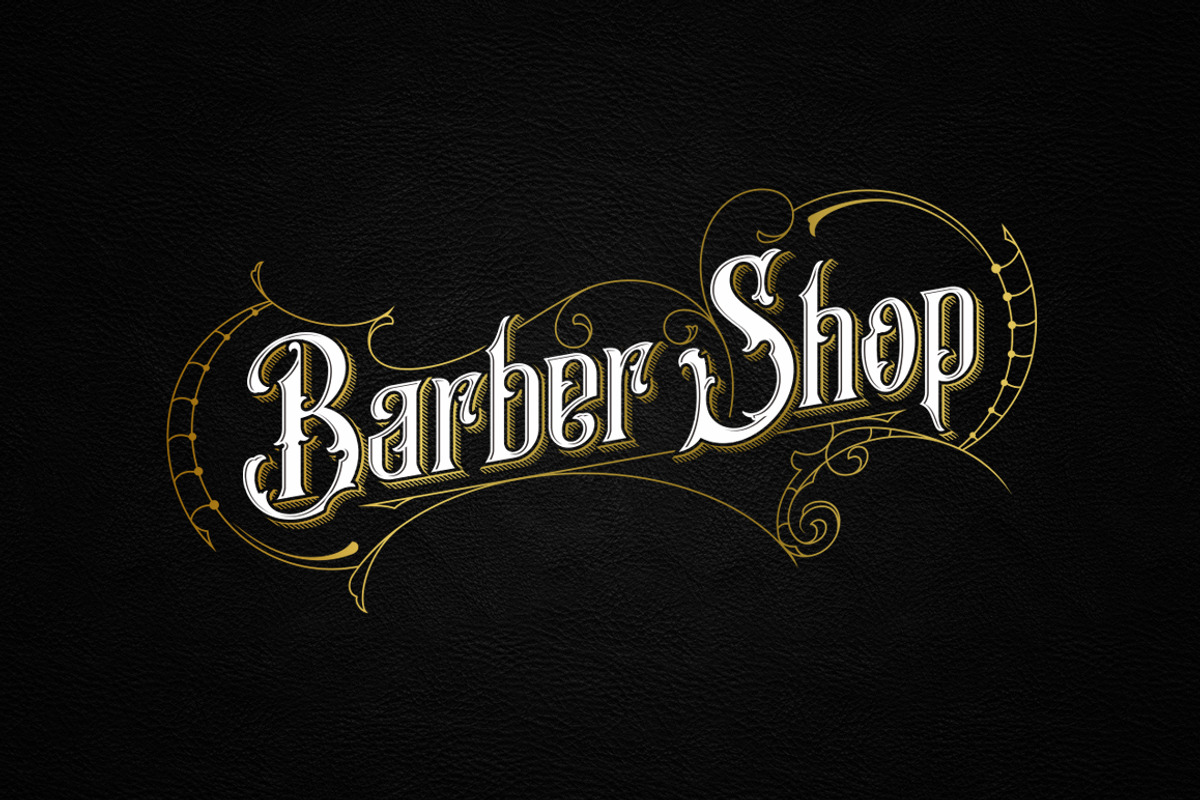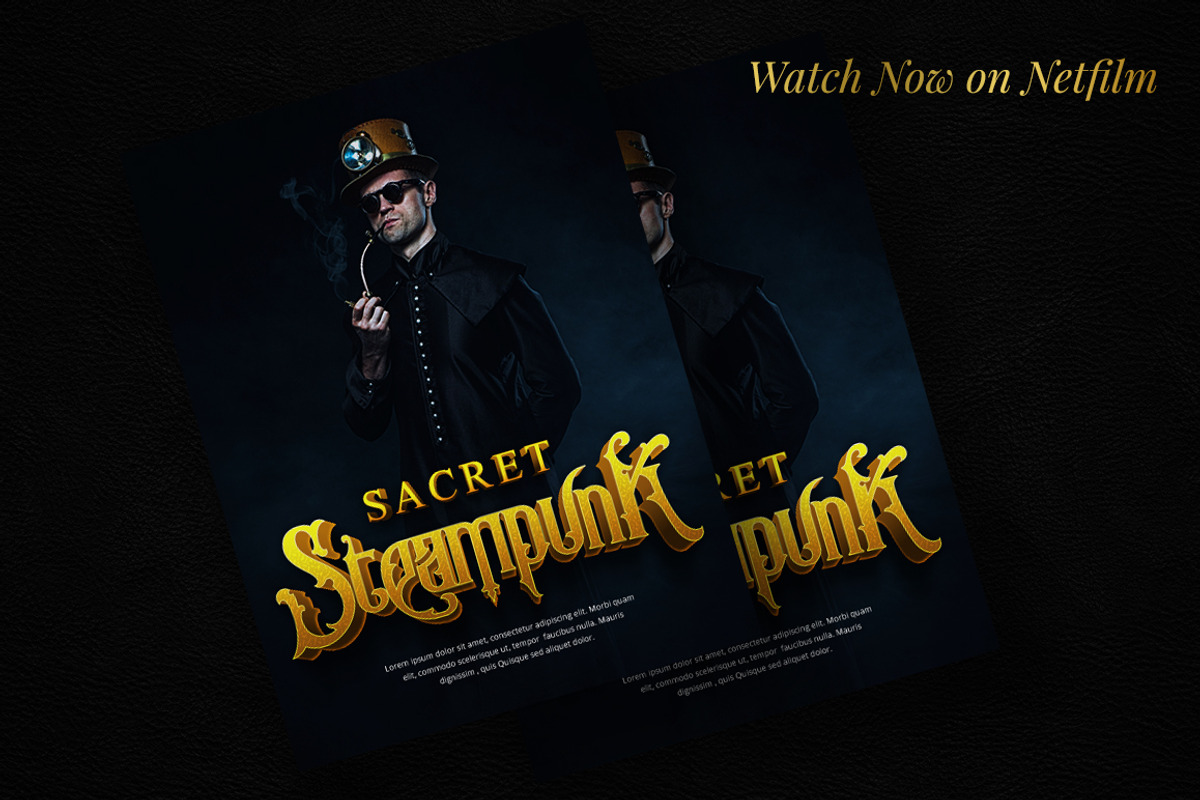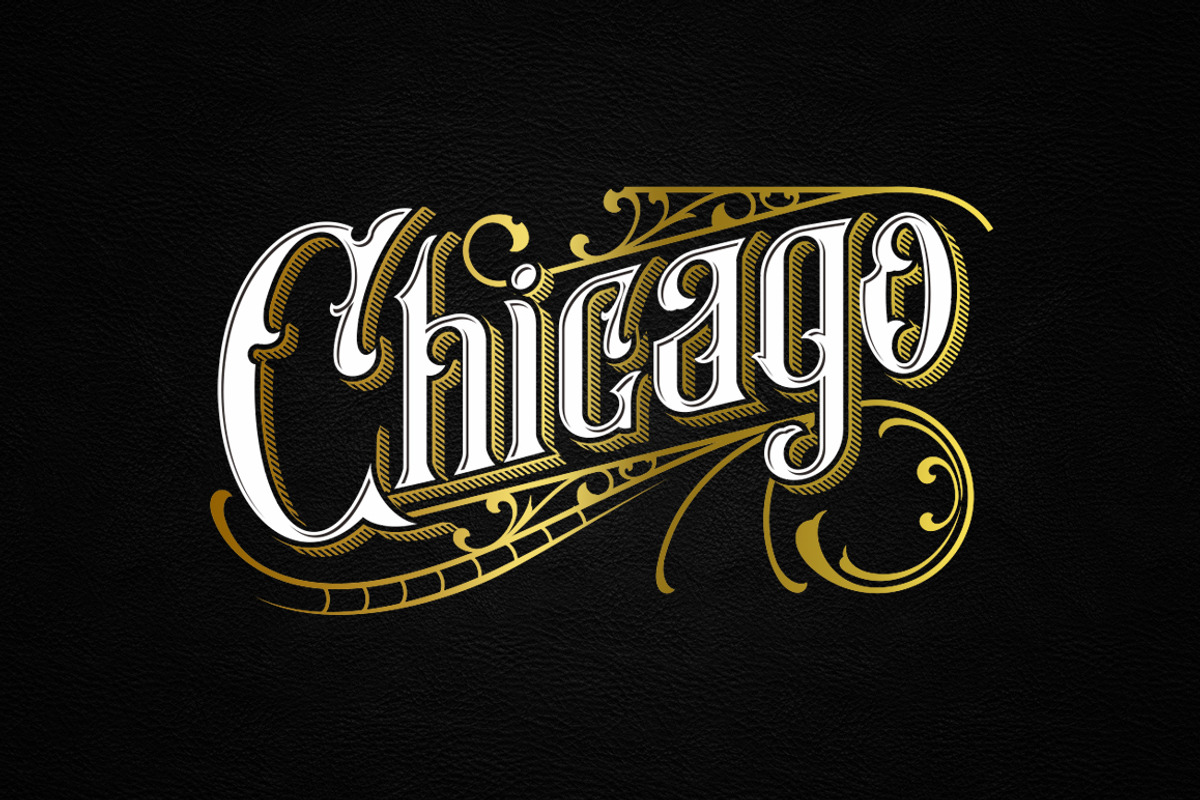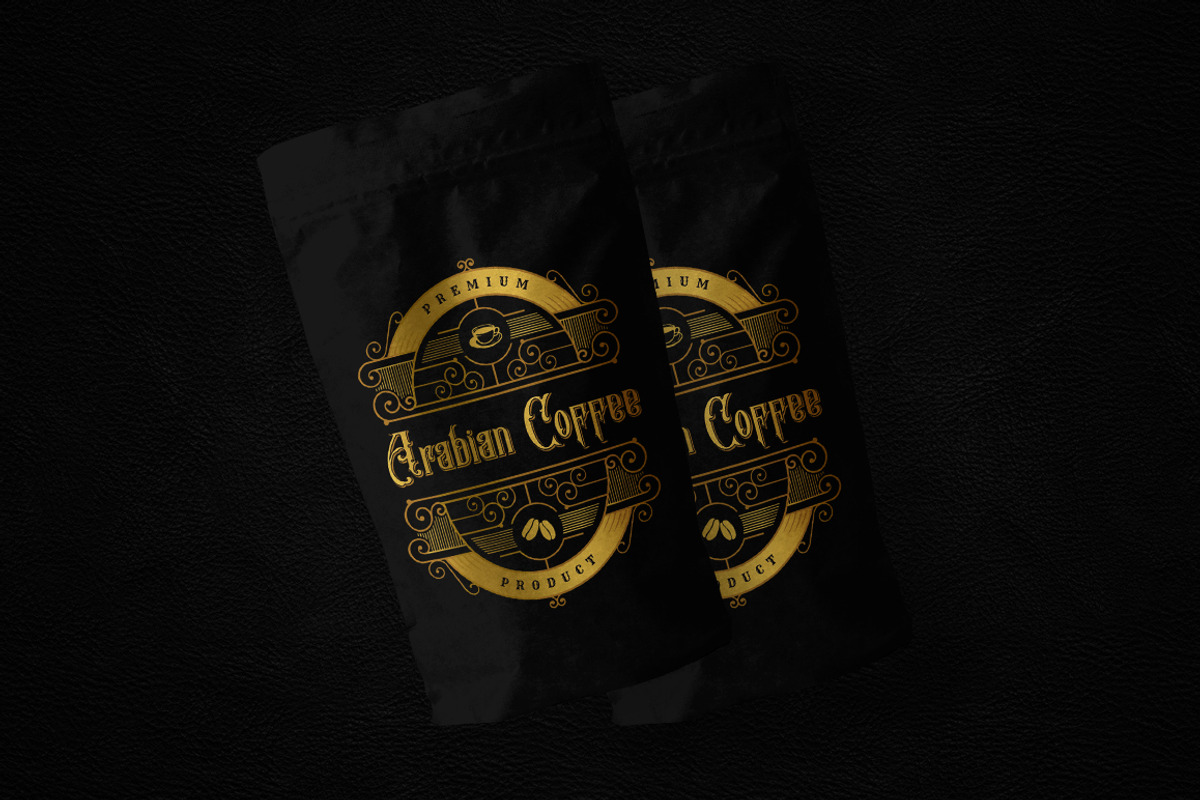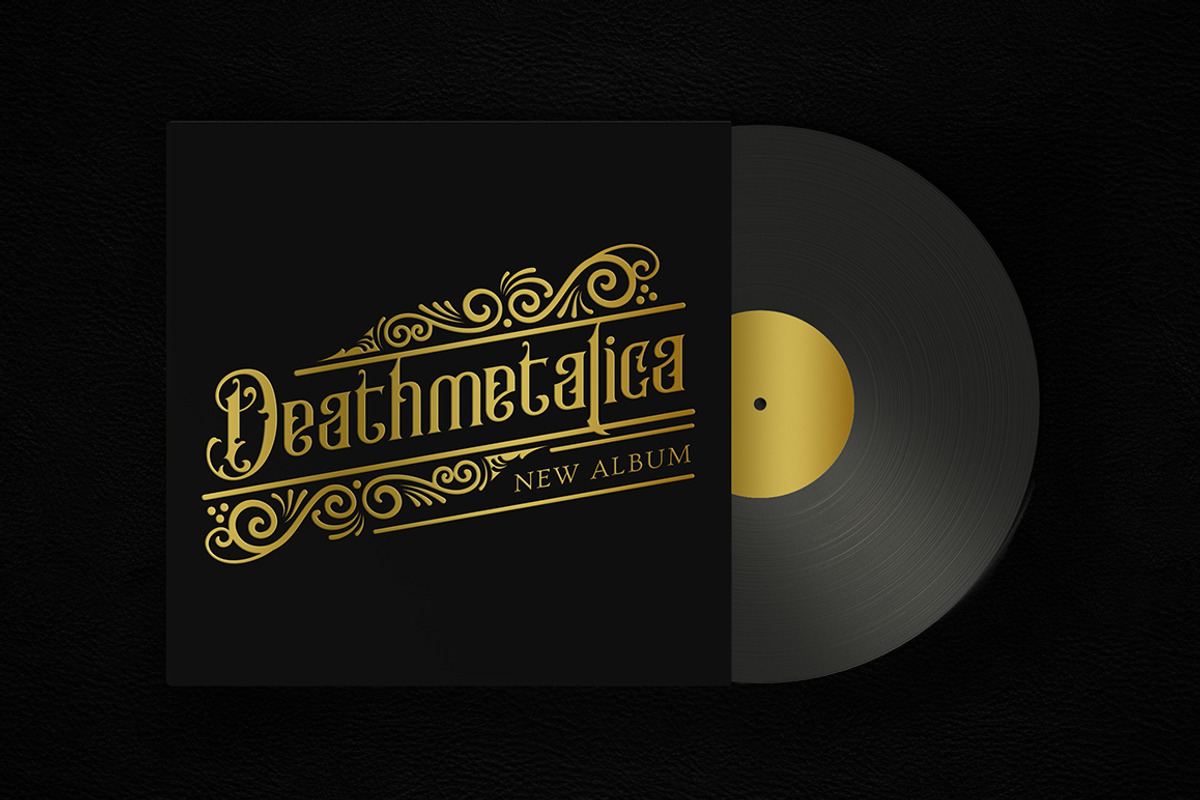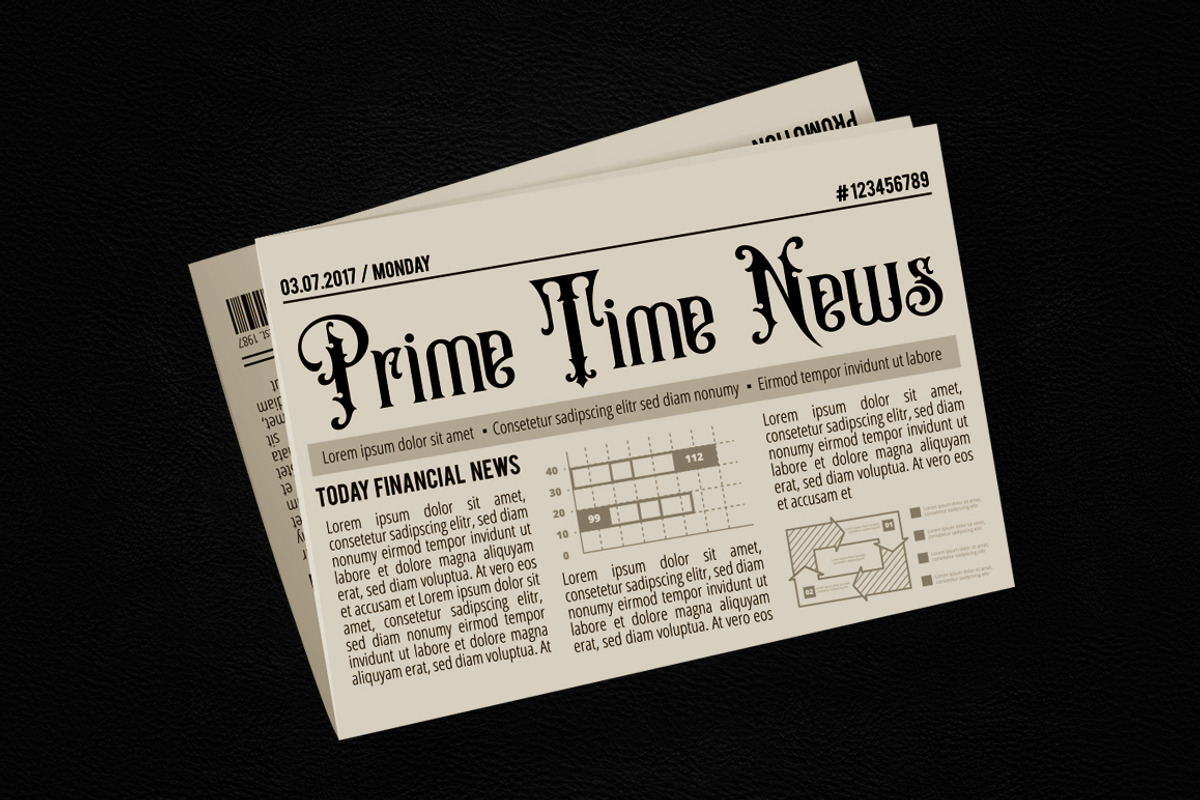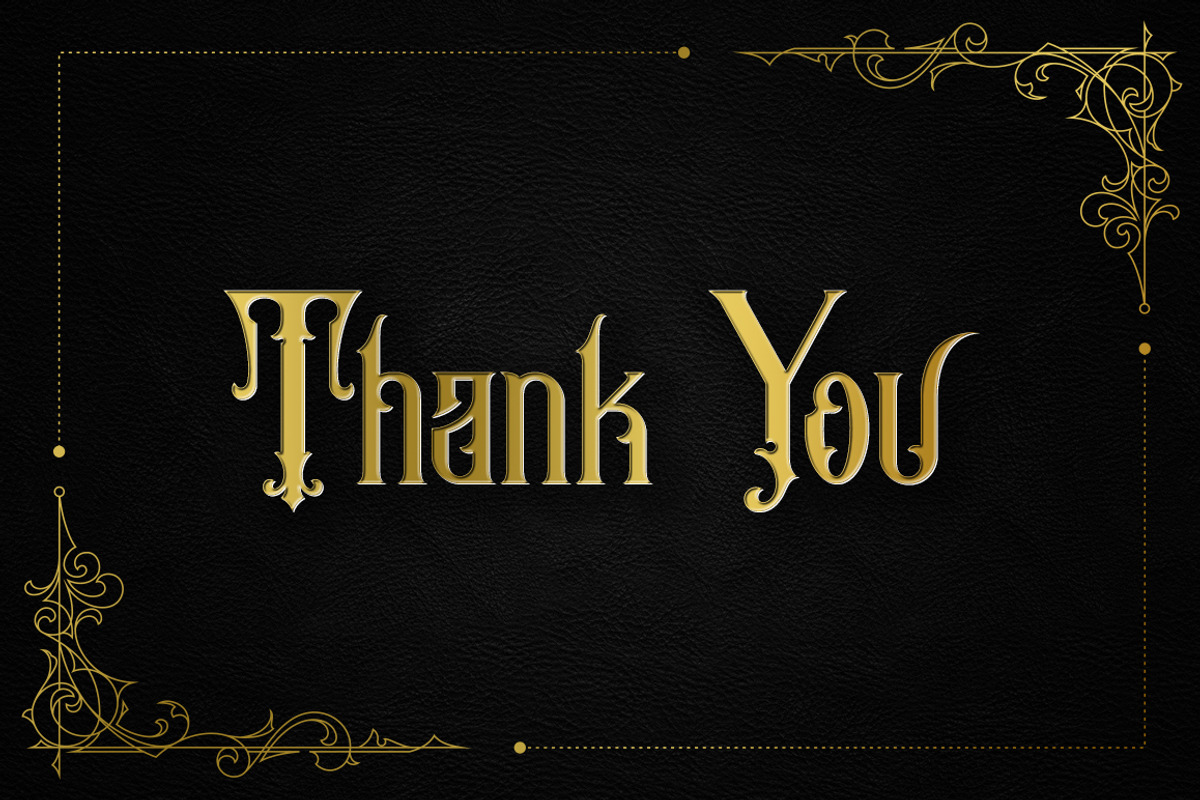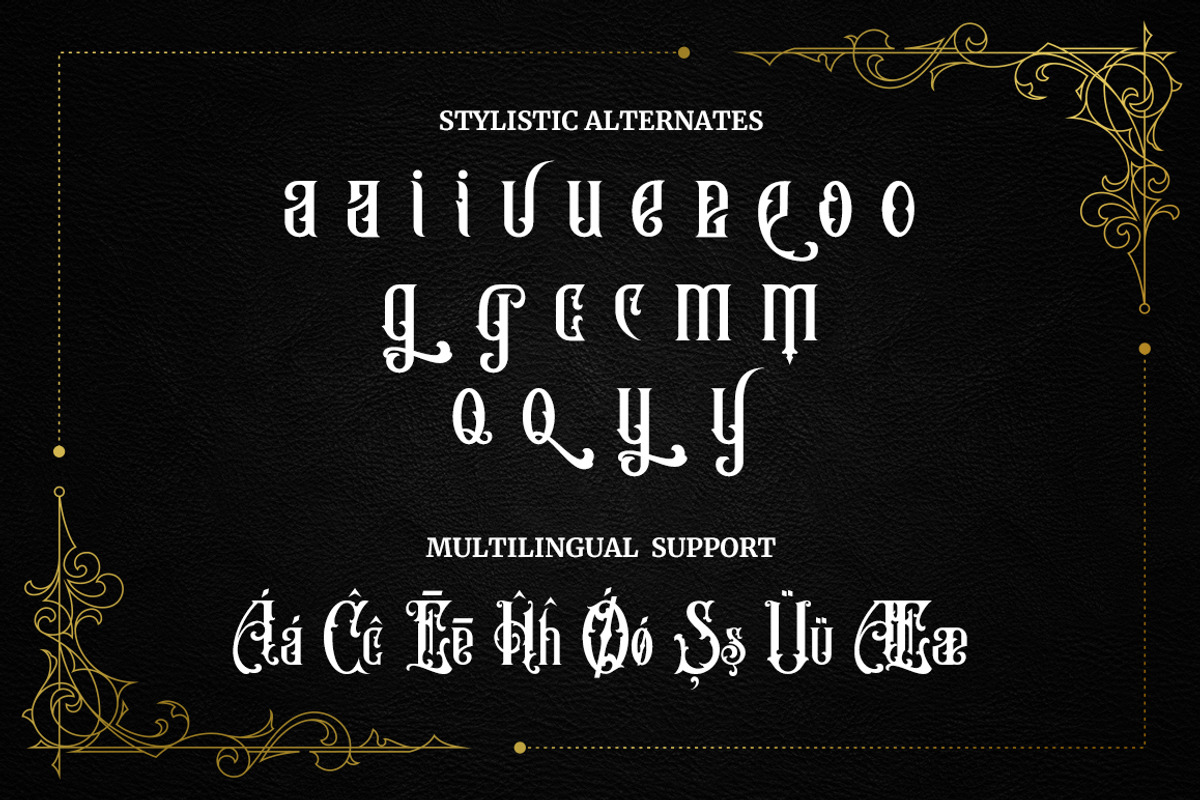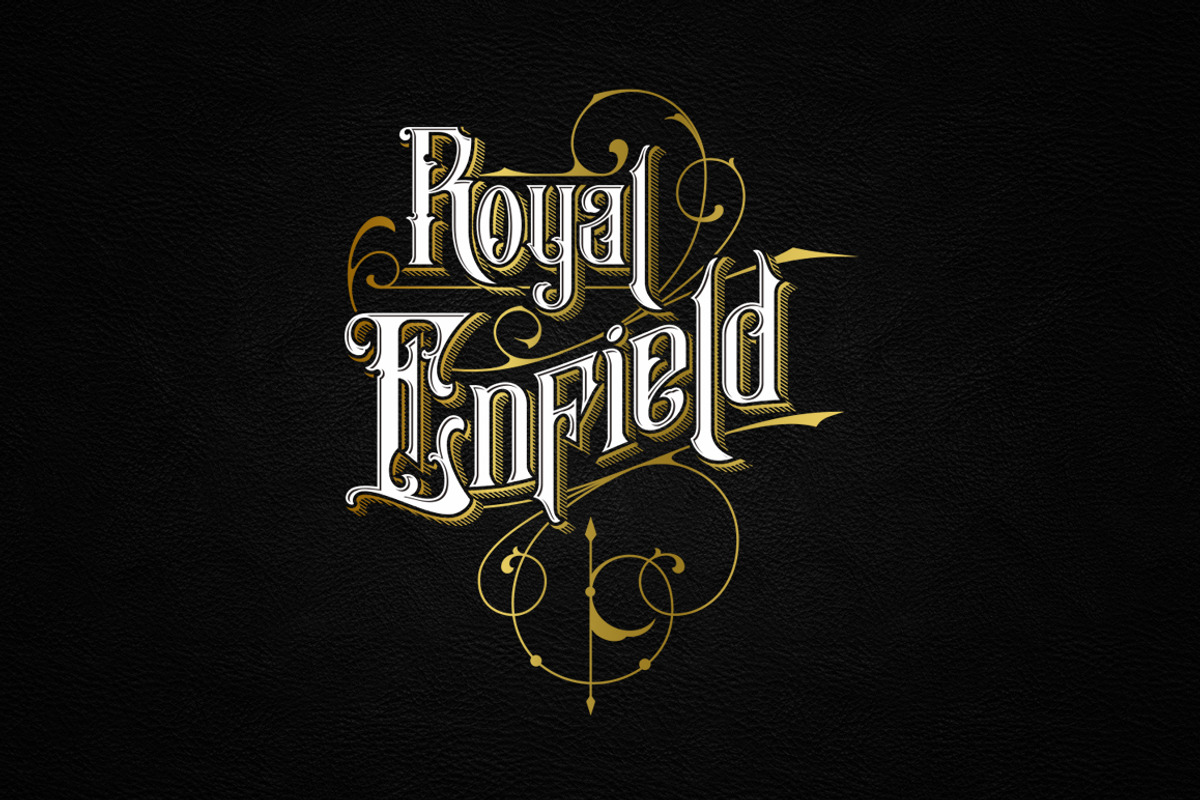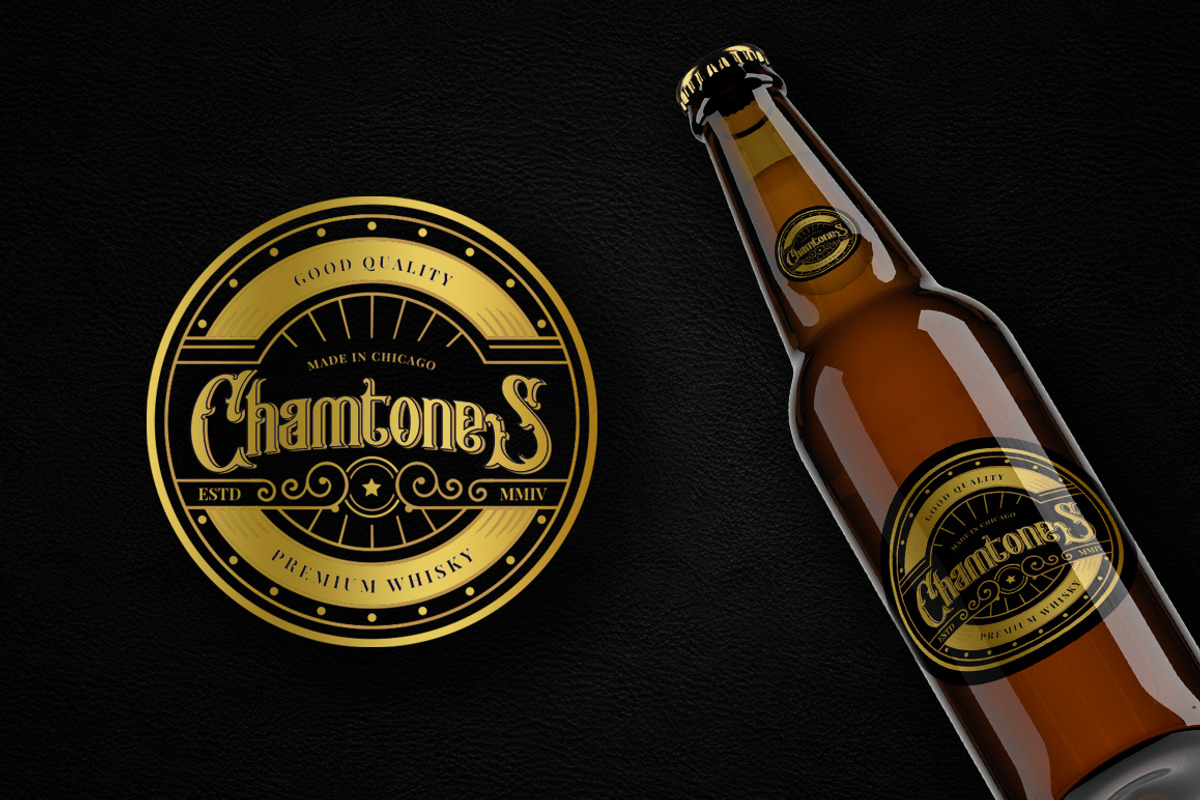
Bogus Jack - Blackletter Font
Bogus Jack is an amazingly unique blackletter font with a strong and classic vibe. Get inspired by its original feel and use it for tattoo designs, logos, posters, book covers, albums and more!